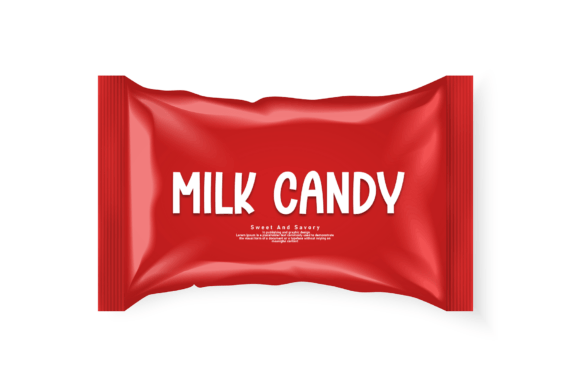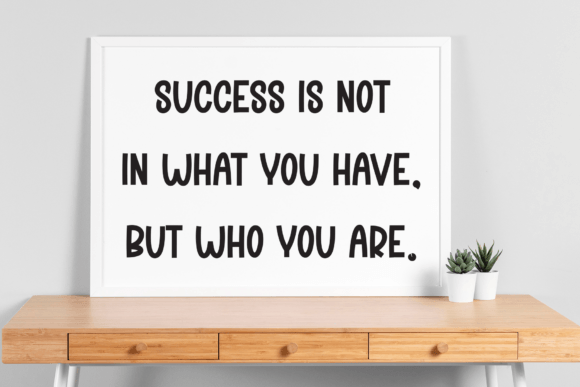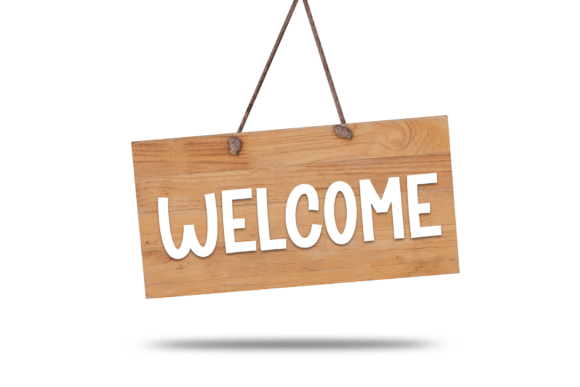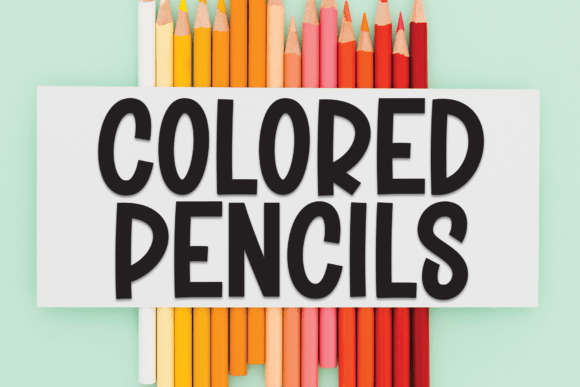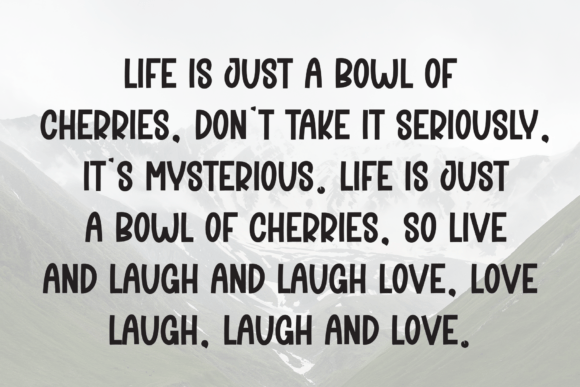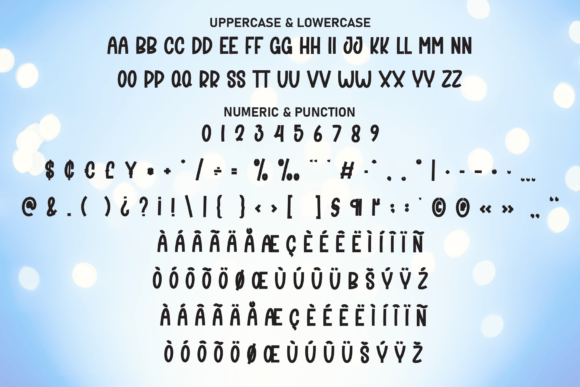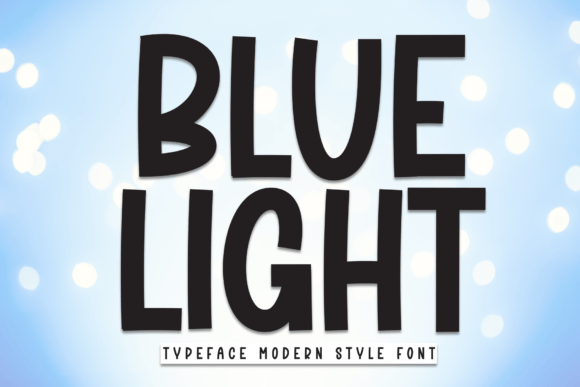
Introducing Blue Light Font: The Ultimate Choice for Bold and Modern Designs
In the world of typography, a good font can make all the difference in creating a visually appealing design. If you’re a designer or craftsperson looking for a bold and modern font to elevate your projects, look no further than Blue Light Font. This stunning display font is designed to turn heads with its thick, clear letters and sleek, contemporary look.
What is Blue Light Font?
Blue Light Font is a bold display font that is perfect for creating attention-grabbing headlines, posters, and other designs that need to stand out. Its modern look and feel make it an ideal choice for designers who want to add a touch of sophistication and creativity to their work. The font’s smooth curves and sharp edges give it a fresh, energetic vibe that is sure to capture the attention of your audience.
Key Features of Blue Light Font
- Bold and Clear Letters: Blue Light Font features thick, clear letters that are easy to read and understand, making it perfect for headlines and titles.
- Modern Look and Feel: The font’s sleek and contemporary design makes it perfect for modern designs and projects that require a fresh look.
- Smooth Curves and Sharp Edges: The font’s smooth curves and sharp edges give it a unique and energetic vibe that sets it apart from other fonts.
- Versatile: Blue Light Font is ideal for both digital and print use, making it a versatile choice for designers and craftspersons.
Uses of Blue Light Font
Blue Light Font is a versatile font that can be used in a variety of design projects, including:
- Headlines and Titles: The font’s bold and clear letters make it perfect for creating attention-grabbing headlines and titles.
- Posters and Flyers: Blue Light Font is ideal for creating posters and flyers that need to stand out and grab attention.
- Digital Designs: The font is perfect for digital designs, including social media graphics, website headers, and more.
- Print Designs: Blue Light Font is also suitable for print designs, including brochures, business cards, and more.
Why Choose Blue Light Font?
There are many reasons why Blue Light Font is a great choice for designers and craftspersons. Here are a few:
- Unique and Eye-Catching: The font’s bold and modern design makes it unique and eye-catching, perfect for designs that need to stand out.
- Easy to Read: Despite its bold design, Blue Light Font is easy to read and understand, making it perfect for headlines and titles.
- Versatile: The font is ideal for both digital and print use, making it a versatile choice for designers and craftspersons.
Tips for Using Blue Light Font
Here are a few tips for using Blue Light Font in your designs:
- Use it for Headlines and Titles: Blue Light Font is perfect for headlines and titles, so use it to create attention-grabbing text.
- Experiment with Colors: The font looks great in a variety of colors, so experiment with different colors to find the one that works best for your design.
- Pair it with Other Fonts: Blue Light Font can be paired with other fonts to create a unique and interesting design.
In conclusion, Blue Light Font is a bold and modern font that is perfect for designers and craftspersons who want to add a touch of sophistication and creativity to their work. Its unique and eye-catching design makes it ideal for headlines, posters, and other designs that need to stand out. With its versatility and ease of use, Blue Light Font is a great choice for any design project.